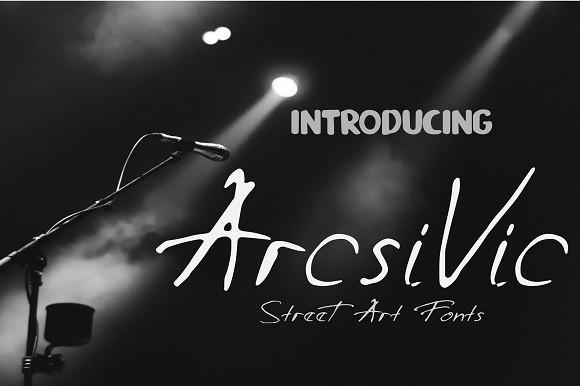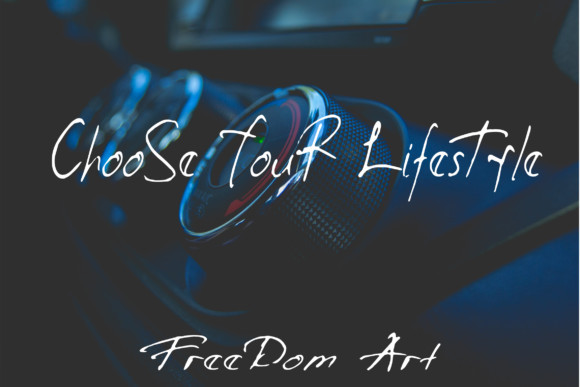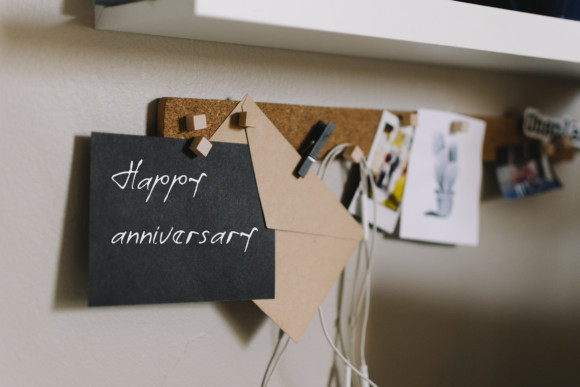
Arcsivic Font
Arcsivic is a fun and playful display font that’s great for a multitude of design occasions. Use it to turn any design project into a masterpiece!